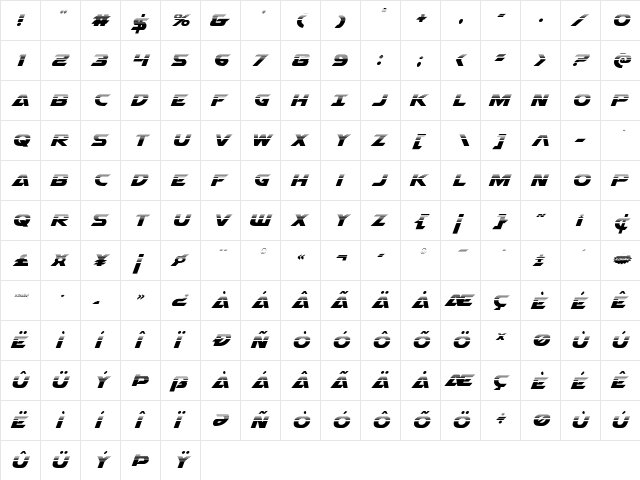
Airstrike Half-Tone Regular
Design Context for Airstrike Half-Tone Typeface
Airstrike Half-Tone is a composed and adaptable typeface that performs quietly and consistently across a wide range of design contexts.